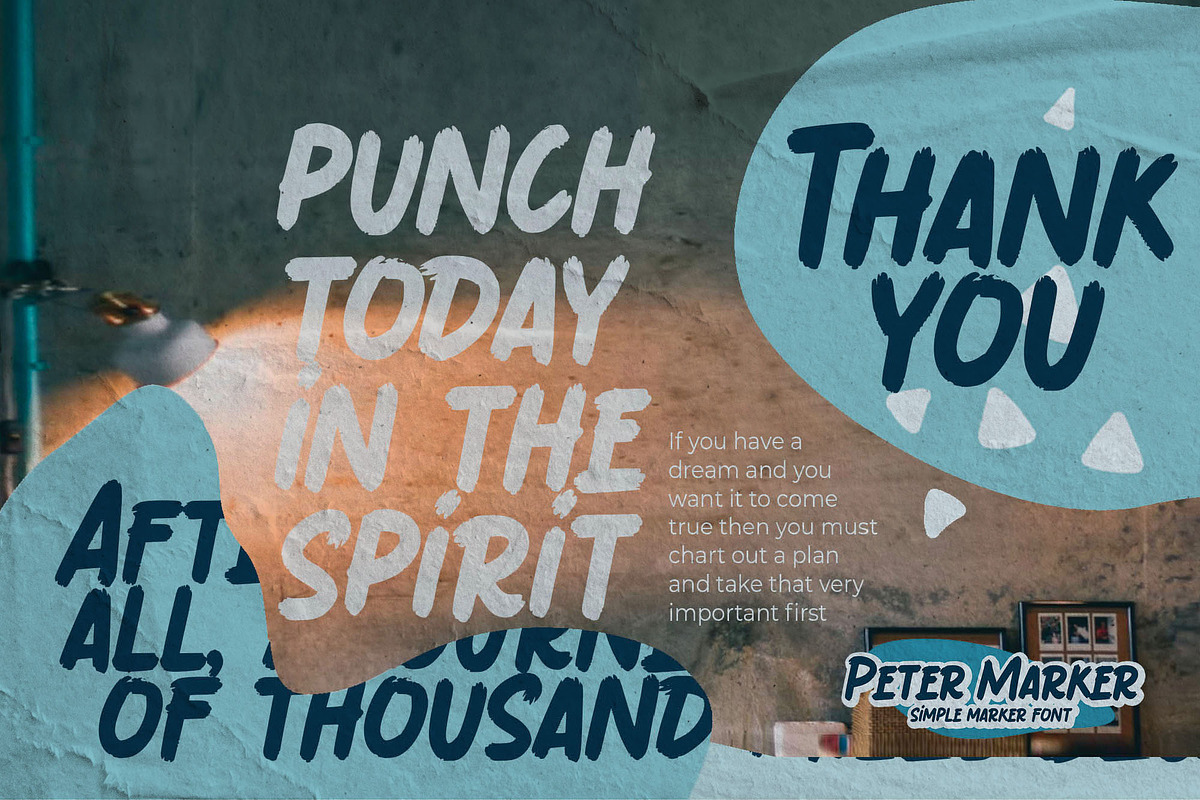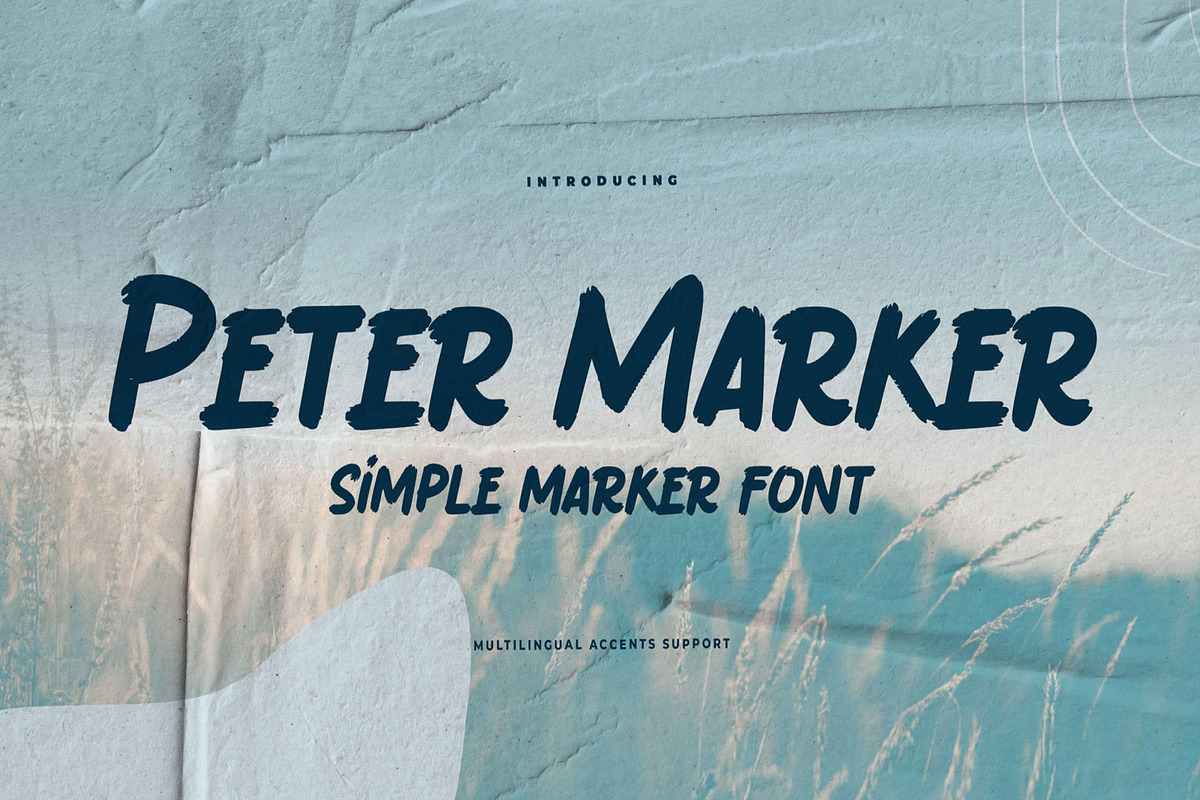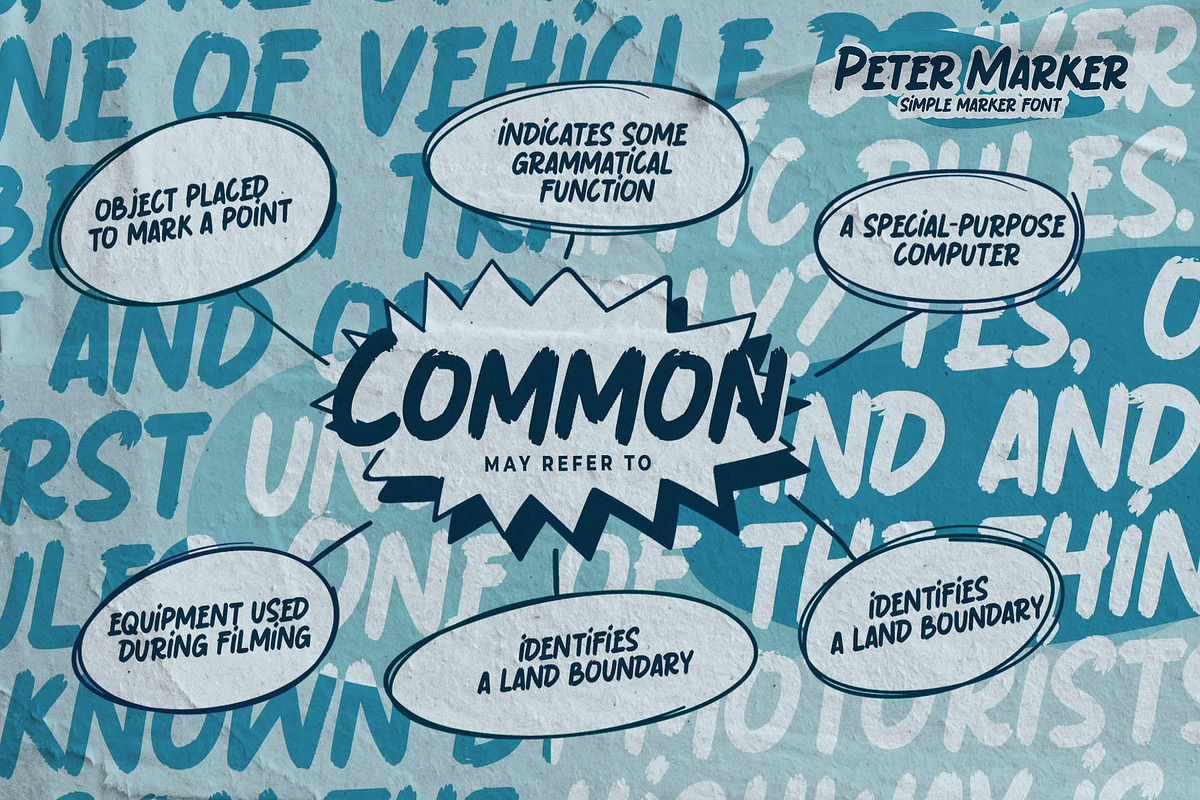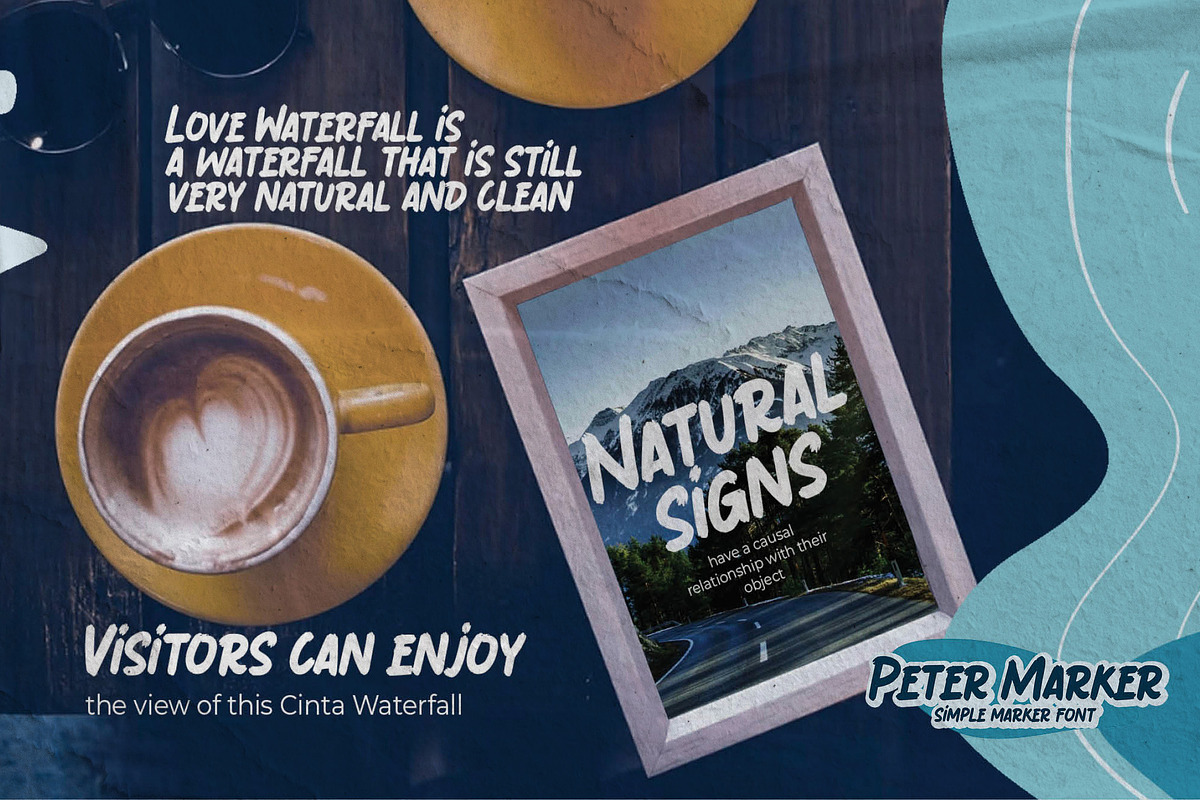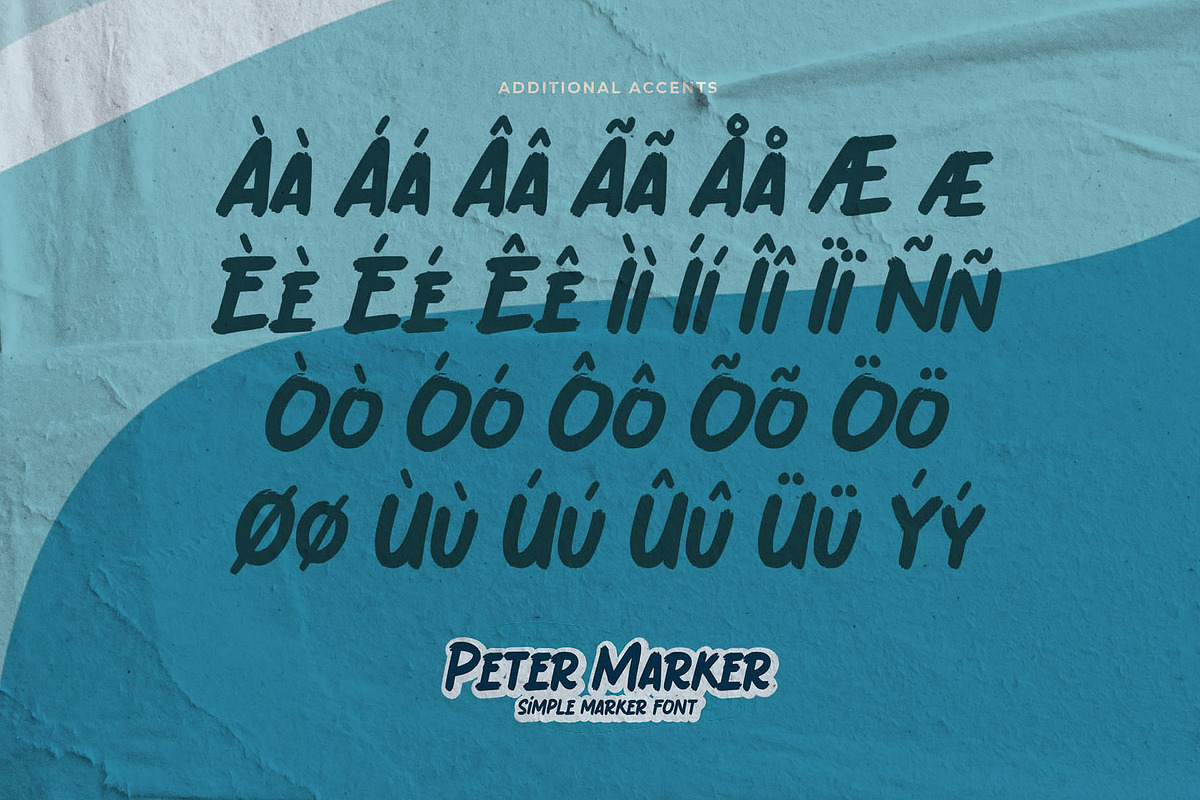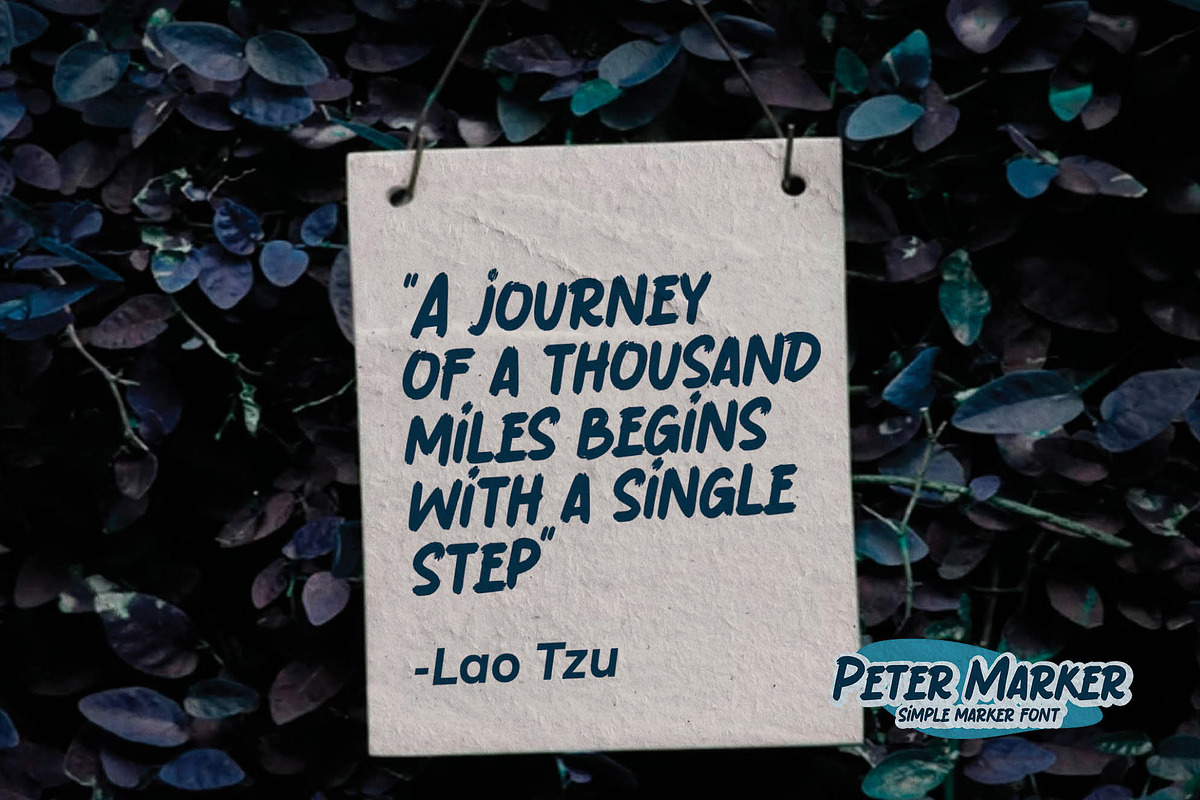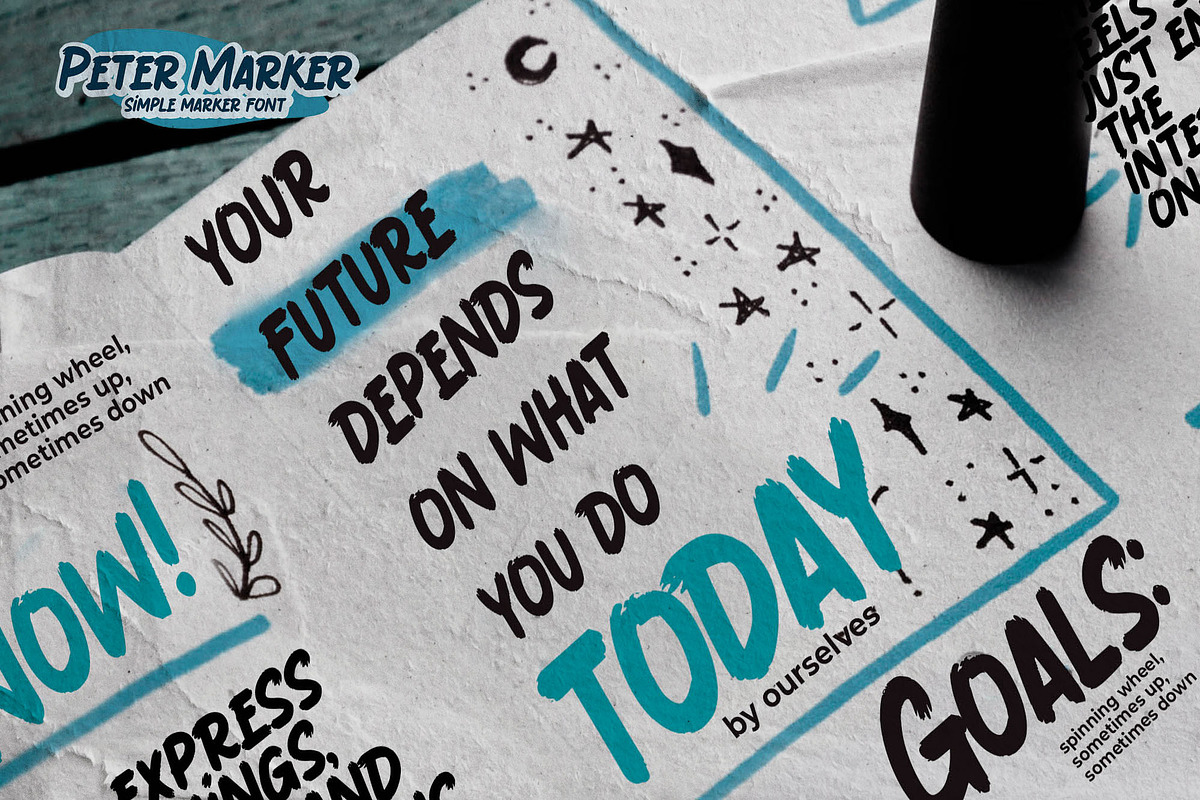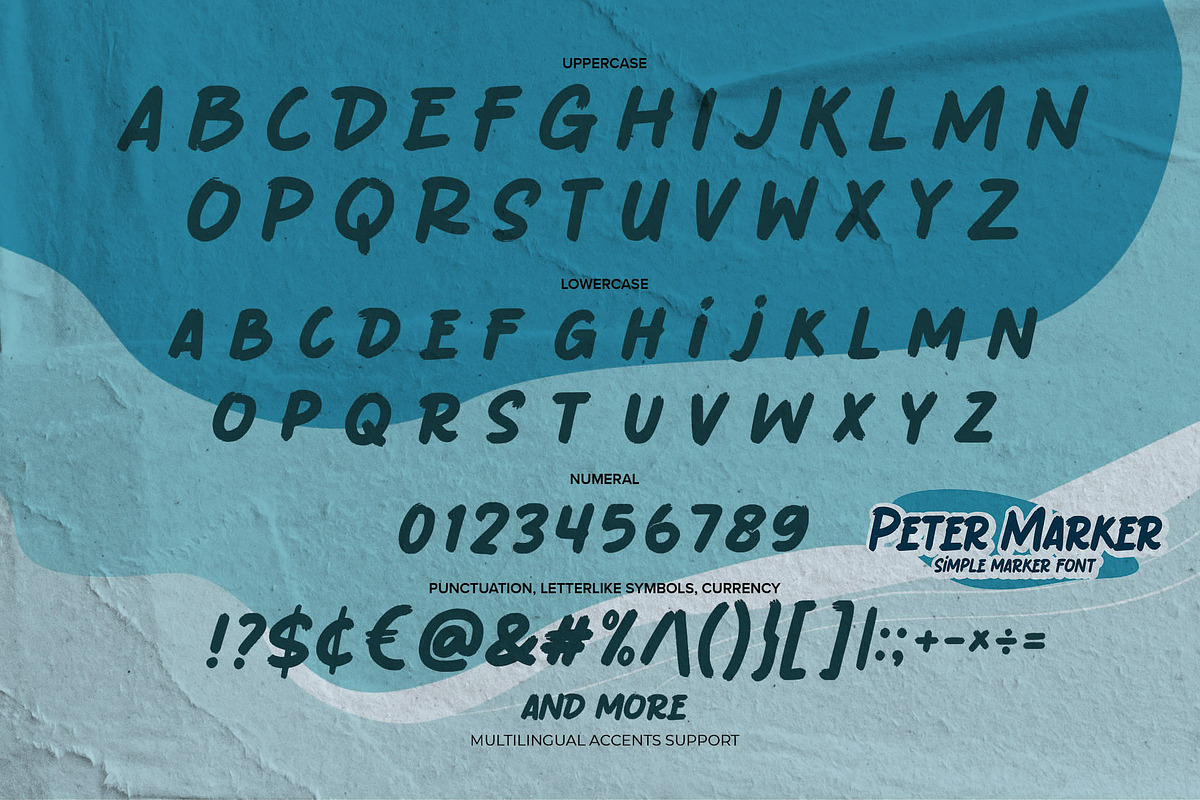
Peter Marker - Simple Marker Font
Hello Everyone, introduce our new product Peter Marker It Is Simple Marker Font with a natural feel. This handmade font will make your design has a beautiful natural touch for each details. It is perfect for any design project as Invitation,logo, book cover, craft or any design purposes. Peter Marker is Inspired by Food Logo style and combination with Unique Craft style. that will fulfill your design needs for quotes,sporty theme, logotype, wordmark, etc. This has many opentype features and support multi language. This font is PUA encoded which means you can access all of the magical glyphs with ease!